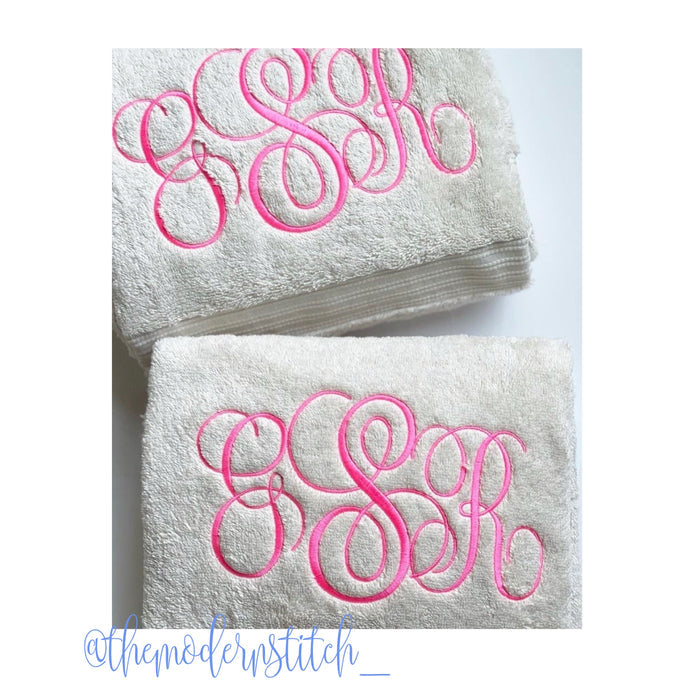
Kathryn 4x4 Satin Stitch Small Embroidery Font
Unleash your creativity with the Kathryn 4x4 Satin Stitch Small Embroidery Font, specially crafted for crafters and DIY enthusiasts who value unique design elements. This single-color satin stitch monogram font features a beautiful script style, allowing you to create stunning three-letter monograms effortlessly. Included are 26 letters in various sizes, giving you each file a total of 52 letters.